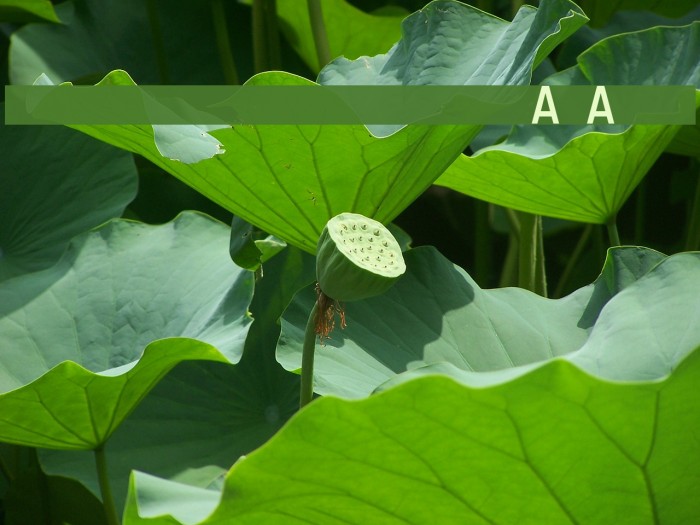
Registration Number ANA.ttf Font
This font features a clean and modern design with a geometric structure. The characters are bold and uniform, providing excellent readability. The numbers are particularly distinct, with a squared-off appearance that enhances clarity. The font's simplicity and precision make it suitable for a variety of applications where clarity and impact are essential. Its uniform stroke width and lack of serifs contribute to a contemporary and professional look.
A bold, geometric font with excellent readability and a modern design.
- Proposed Projects: Ideal for use in signage, vehicle registration plates, digital displays, and branding materials where clarity and impact are crucial.
- Use Case: Headlines, Logos, Signage